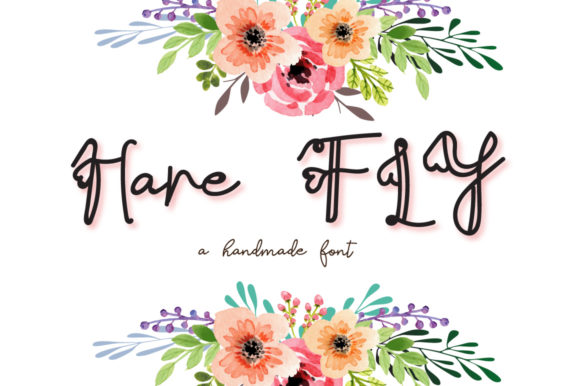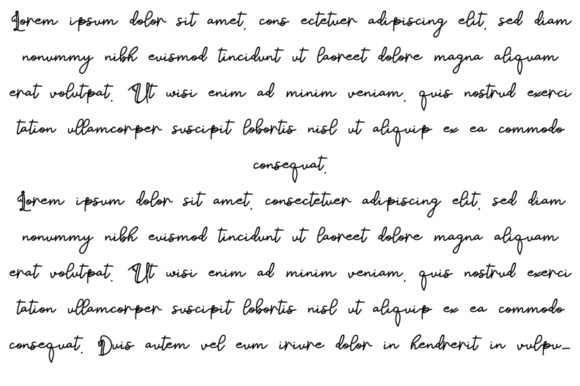
HomeScript FontsHare Fly Font Script Fonts Hare Fly Font FacebookXPinterestWhatsApp Hare Fly Font Poster 2 About Hare Fly Font Hare Fly is a fun and bold handwritten font with a lovely charm. It will turn any design project into a stand out. DOWNLOAD ON CREATIVE FABRICAThis font is sold and delivered by Creative Fabrica. Font Canyon may earn a commission if you buy through this link. People also explored Masculine Font Honey Gloss Font Traditional Civilization Font Spring Garden Font Kaehan Font The Rosmarie Signature Font High Font Kaditula Font Thermal Shock 308 0 TagsHare Fly Font Previous articleSuman Bua FontNext articleKimono Font LEAVE A REPLY Cancel reply Comment: Please enter your comment! Name:* Please enter your name here Email:* You have entered an incorrect email address! Please enter your email address here Website: Save my name, email, and website in this browser for the next time I comment. Personal Use Free Astercla Personal Use Free Read more about this font Setta Personal Use Free Read more about this font Eloquence Personal Use Free Read more about this font Muthiara Font Personal Use Free Read more about this font BLOG The 10 Best Handwriting Fonts to Add Personality to Your Designs 10 of the Best Handwriting Fonts for Adding Personality to Your Designs There will undoubtedly be no other better choice than handwriting fonts to give... Best Fonts for YouTube Videos: Make Your Thumbnails Stand Out Transform Your Website: Elevate Your Typography with 7 Best Web Font Generators Free vs Paid Fonts: Why Investing in Premium Fonts Is Worth It